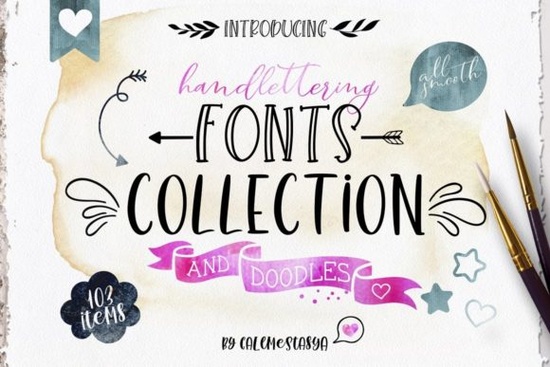
Looking for a versatile font bundle that works across different design styles? The {title} gives you 12 fonts and a set of doodle elements in one download. Whether you're designing wedding invitations, social media graphics, t-shirt quotes, or product labels, this collection covers a wide range of moods from modern calligraphy to playful sans serif.
What Fonts Are Included in This Collection?
This bundle packs a lot into one download. Here's every font and doodle element you get:
- Bali Night a modern calligraphy script with smooth, flowing strokes
- Bali Night Italic the italic version with a slight slant for added movement
- Beachy Girl a cute, casual script that feels light and friendly
- Beachy Girl Italic the italic counterpart for a more relaxed look
- Bread and Tomato an all-caps serif font, great for headlines and branding
- Peach Pie a cute sans serif that stays readable at smaller sizes
- Peony and Lemon a decorative all-caps font with personality
- Rock Beach a decorative display font for bold statements
- Tomato and Basil a mix of uppercase and lowercase letters that pairs well with its sans serif version
- Tomato and Basil Sans Serif the clean sans serif companion
- Lemonights a charming script font (note: does not include numbers or punctuation)
- Lemonights Italic the italic version (also without numbers or punctuation)
- Doodles Elements hand-drawn illustrations to complement your text designs
Which Fonts Pair Well Together?
One of the best things about the {title} is that several fonts were clearly designed to work as pairs. Here are some combinations that look great:
- Tomato and Basil + Tomato and Basil Sans Serif Use the decorative version for headlines and the sans serif for body text or subheadings. This combo keeps your layout readable while staying visually interesting.
- Lemonights + Tomato and Basil Sans Serif Since Lemonights doesn't include numbers or punctuation, pairing it with the sans serif version fills those gaps cleanly. Use Lemonights for the main quote and Tomato and Basil Sans Serif for dates, prices, or any text that needs special characters.
- Bali Night + Peach Pie A calligraphy script next to a clean sans serif creates a nice contrast. This works well for wedding invitations and greeting cards.
- Beachy Girl + Bread and Tomato The casual script balances the structured all-caps serif. Good for summer-themed designs or social media posts.
The included doodle elements add a nice hand-drawn touch. You can use them as decorative borders, filler illustrations, or standalone design accents around your text.
The doodle elements are a bonus that most font packs don't include. For crafters who work with Cricut or Silhouette machines, having matching illustrations alongside the fonts makes it easier to create cohesive designs without hunting for separate clipart.
Designers who work on seasonal projects will appreciate the range here. Sporty display fonts handle bold headlines, but this collection covers the softer, more personal side of design think love quotes, recipe cards, welcome signs, and romantic typography projects.
Quick Design Tips for Hand-Lettered Fonts
- Don't mix too many scripts in one design. Stick to one script font paired with one sans serif or serif.
- Adjust letter spacing Hand-lettered fonts often look better with slightly increased tracking.
- Test readability at different sizes What looks beautiful at 72pt might blur together at 12pt.
- Use the doodle elements sparingly A few hand-drawn accents go a long way. Too many can make a layout feel cluttered.
Before You Start Designing
Here's a simple checklist to get the most out of this bundle:
- Download and install all 12 fonts and the doodle elements
- Test each font in your preferred design software (Canva, Adobe Illustrator, Affinity Designer, etc.)
- Check that Lemonights and Lemonights Italic have the characters you need (remember, no numbers or punctuation)